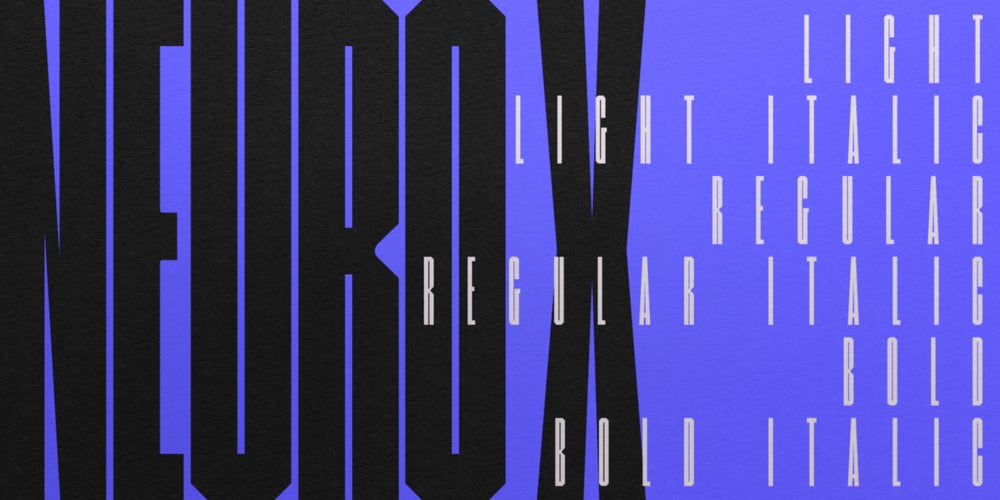
Neuro X Font Family was designed by Jonathan Quainton, Rob Gonzalez and published by Sawdust. Neuro X contains 12 styles and family package options. Neuro X is a narrow sans serif typeface consisting of three weights with additional rounded versions and matching italics.It was first drawn as an exploration for a headline font and later expanded on to become a full typeface family. Neuro X explores the extremities of narrow proportions whilst also allowing for eccentric cuts. The typeface has been tightly monospaced and intended for use at larger sizes as a display but can also work at smaller scales for the more courageous among us.This 339 glyph font has language support for 26 languages: Afrikaans, Albanian, Catalan, Croatian, Czech, Danish, Dutch, English, Estonian, Finnish, French, German, Hungarian, Icelandic, Italian, Lithuanian, Maltese, Norwegian, Polish, Portuguese, Slovak, Slovenian, Spanish, Swedish, Turkish, Zulu.